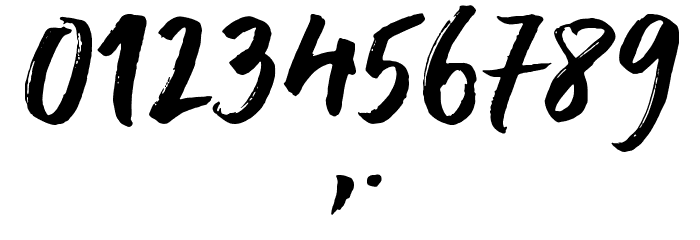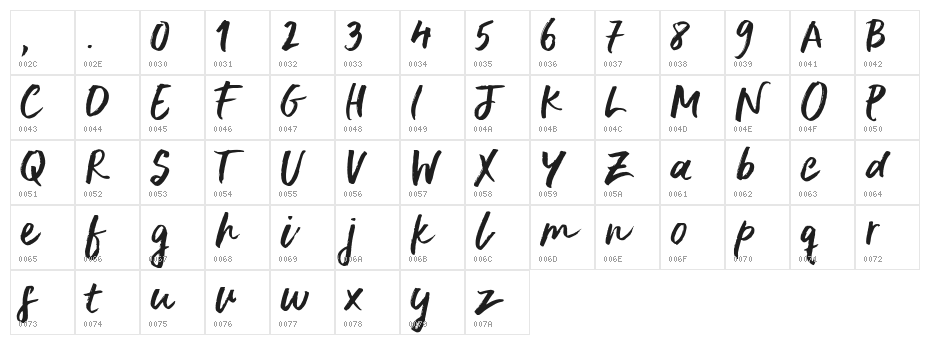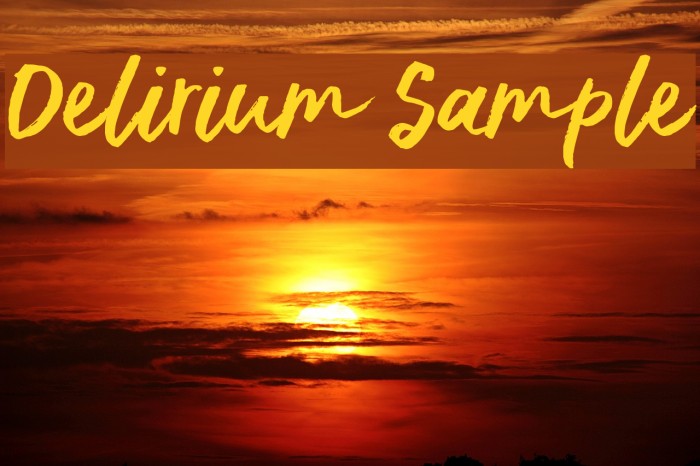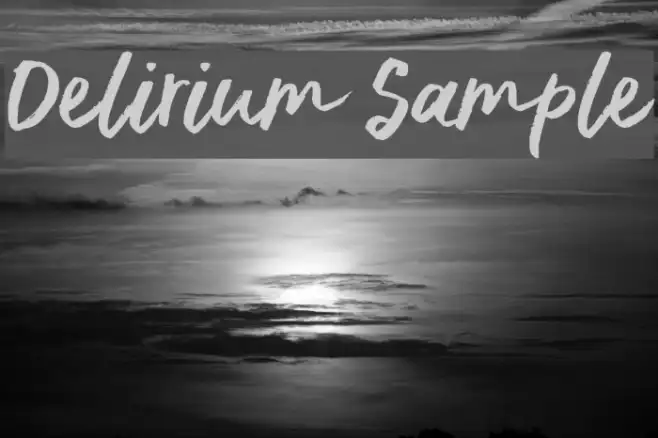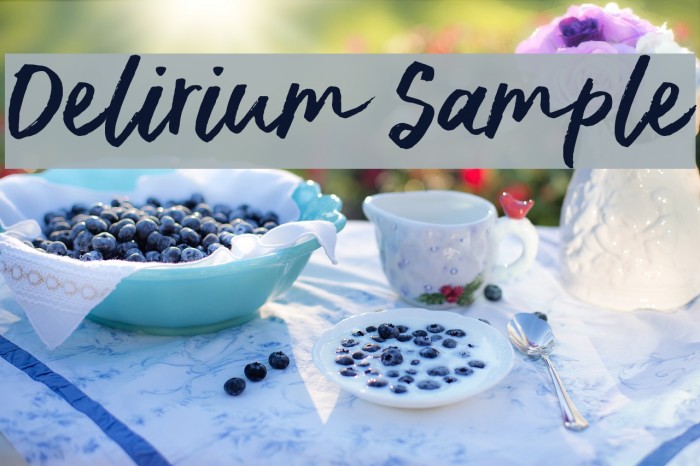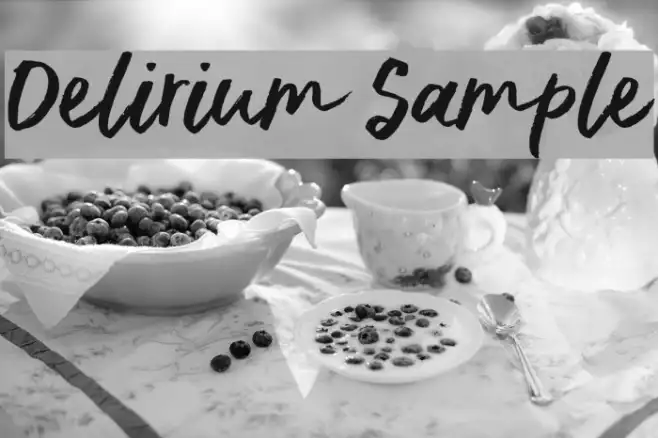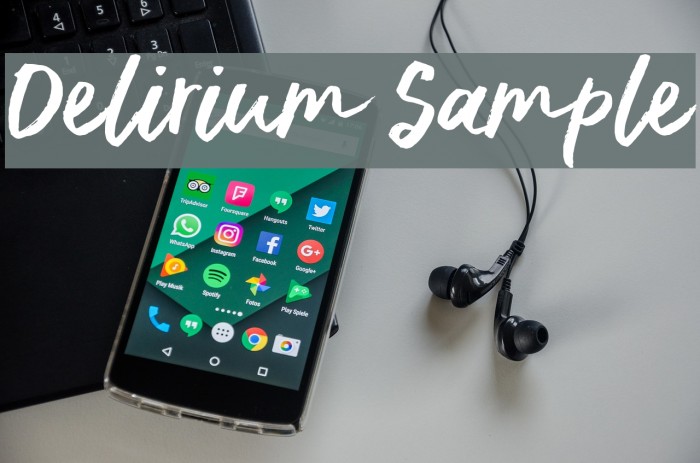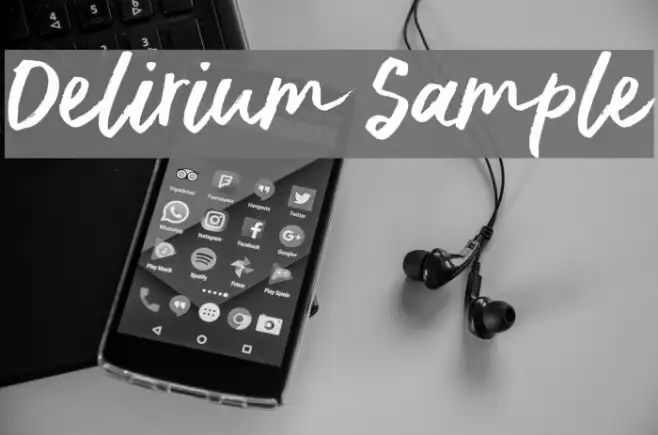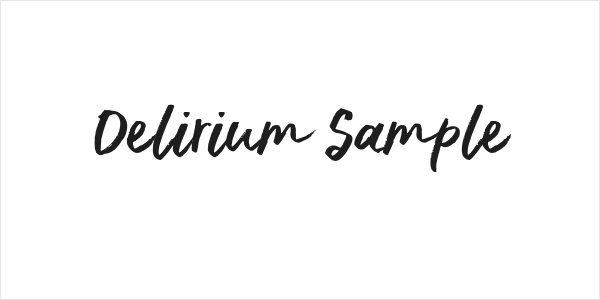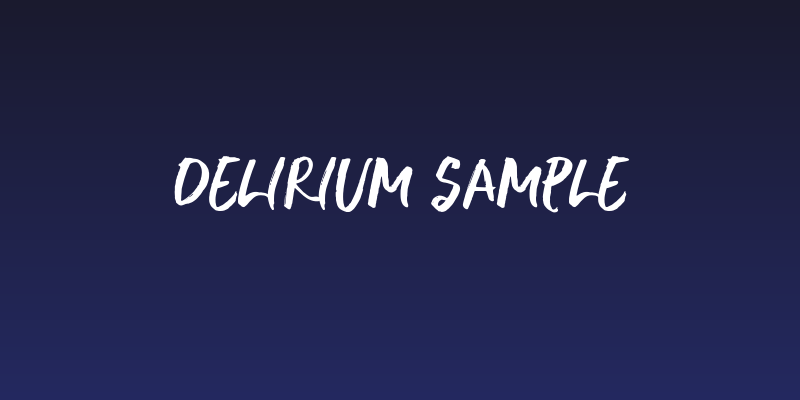
Delirium Sample Font
Delirium Sample Description
This font features a bold, expressive style with a handwritten appearance. The strokes are thick and dynamic, giving it a lively and energetic feel. The letters are slightly slanted, adding to the casual and informal vibe. The uppercase and lowercase letters are distinct, with the uppercase being more pronounced and the lowercase maintaining a fluid, cursive-like flow. The numbers are consistent with the overall style, maintaining the bold and artistic flair. This font is ideal for projects that require a personal touch or a creative, artistic expression.
| Proposed Projects | Ideal for creative projects such as posters, invitations, branding, and social media graphics. |